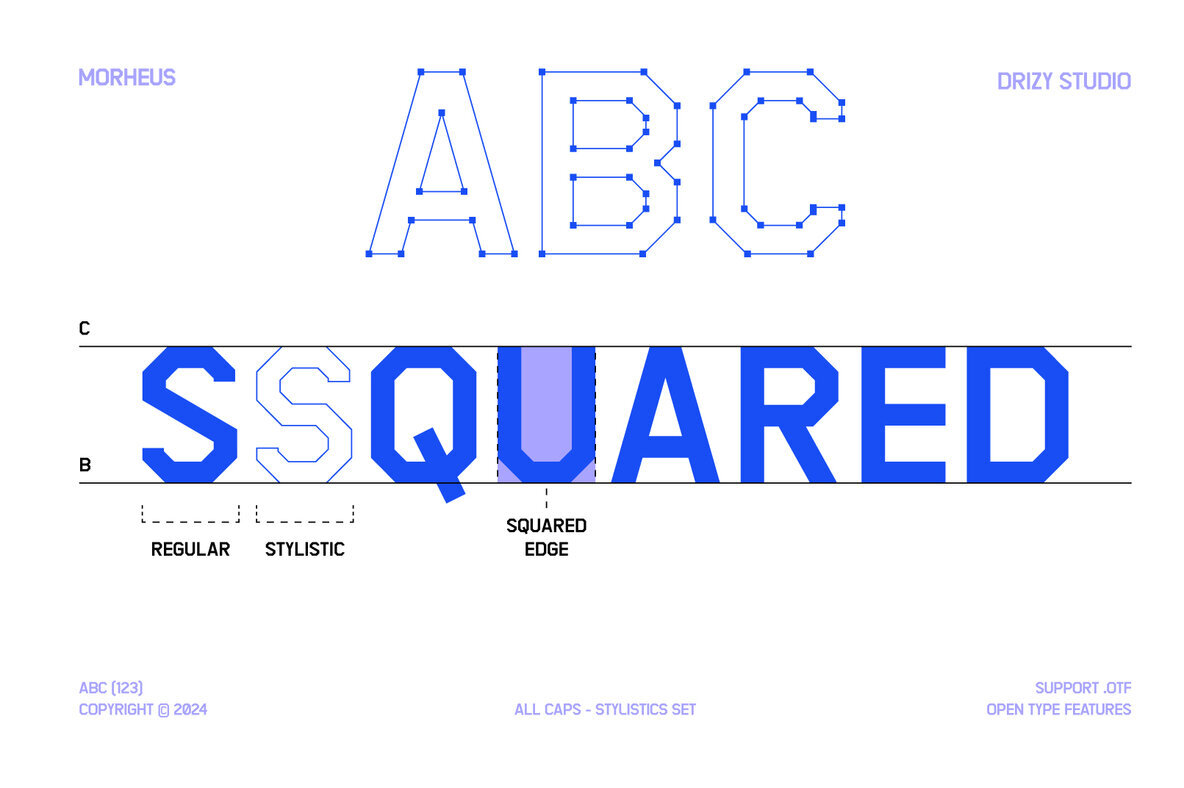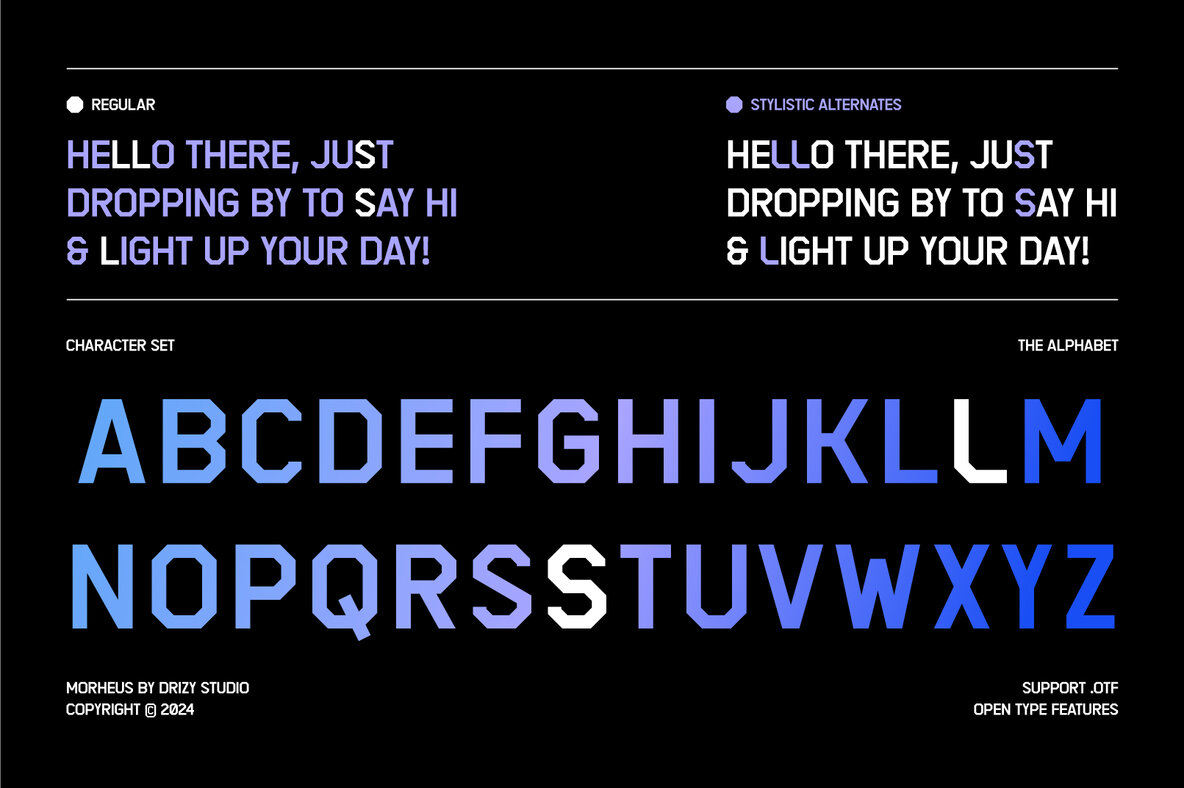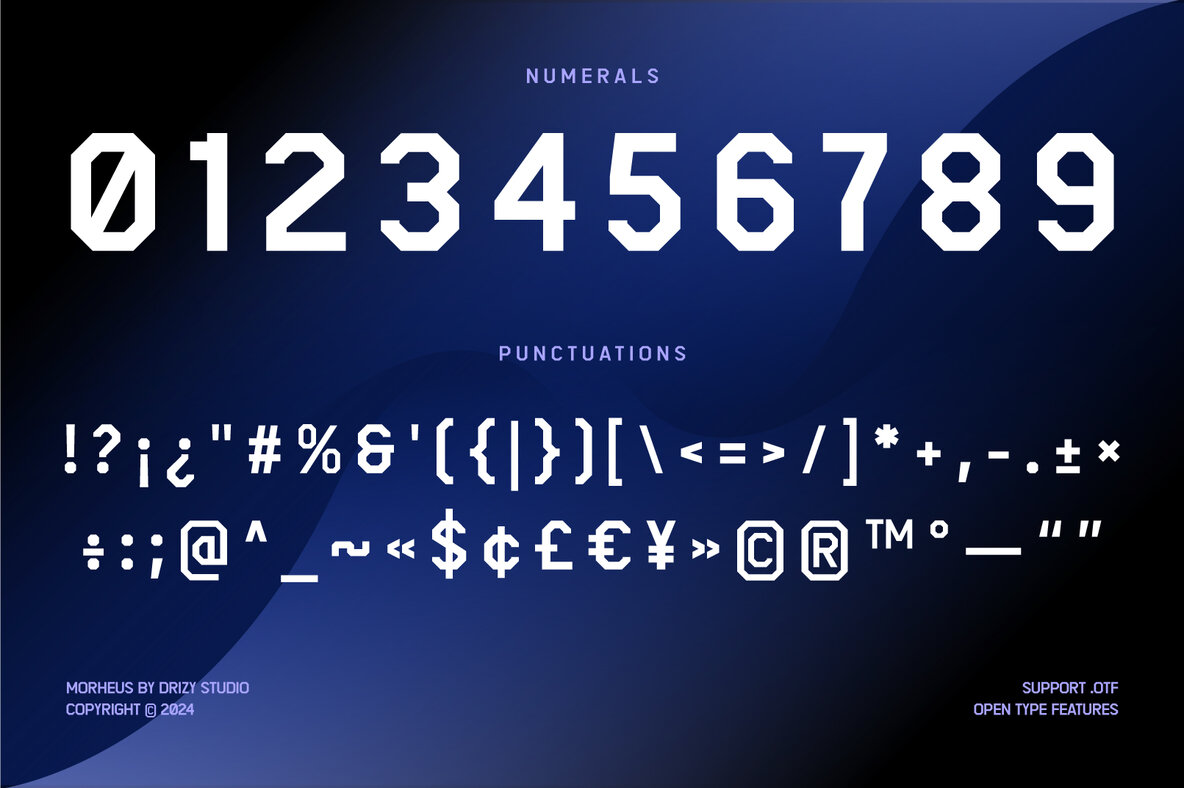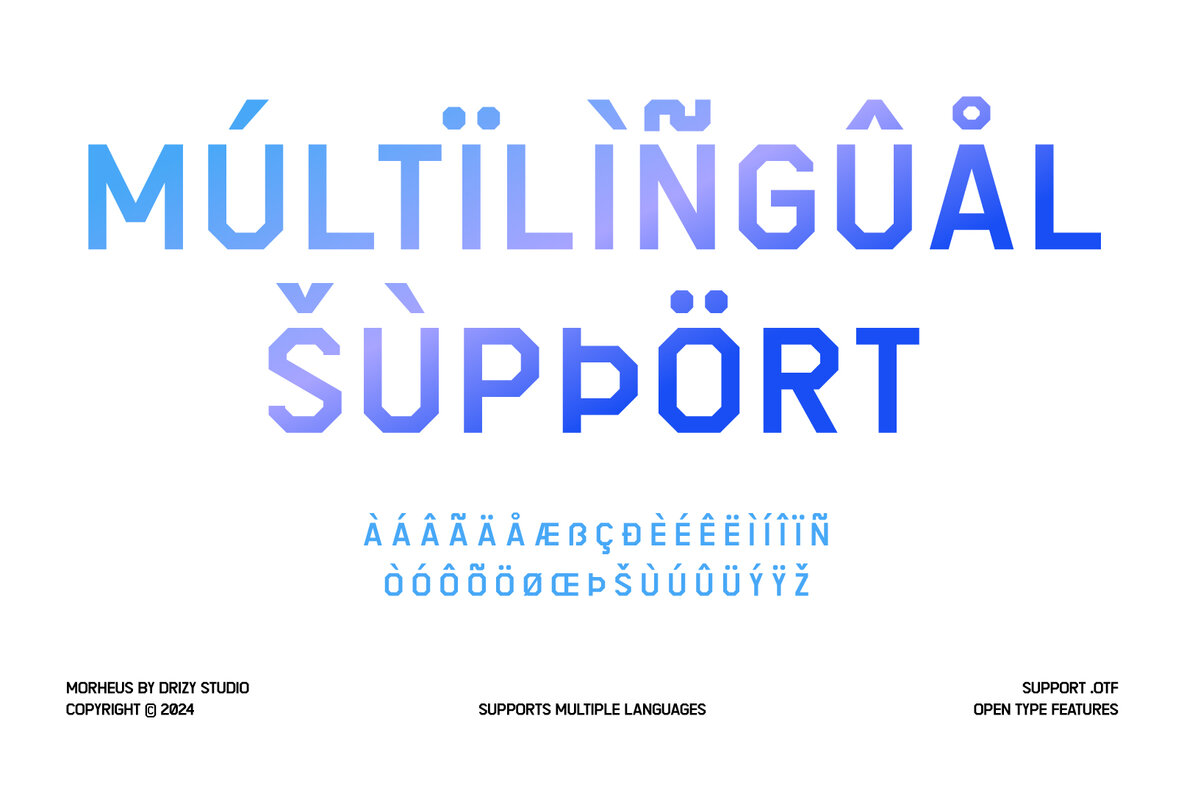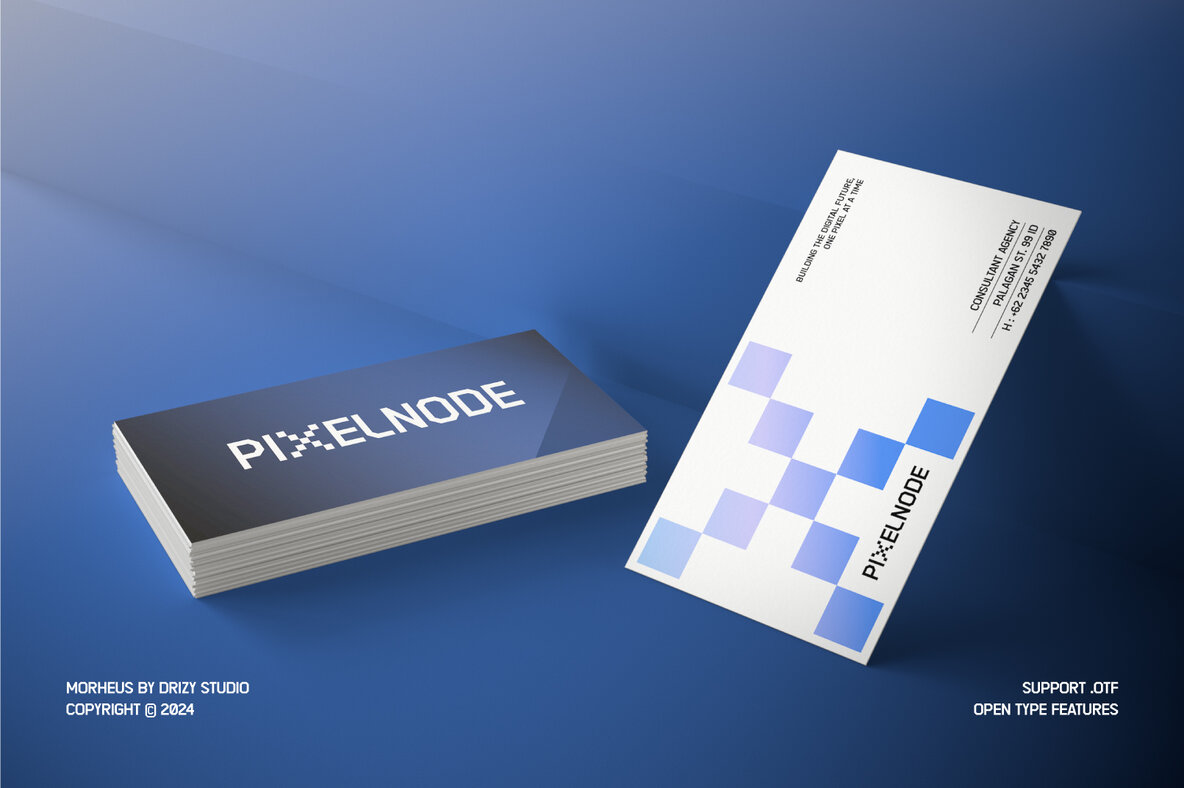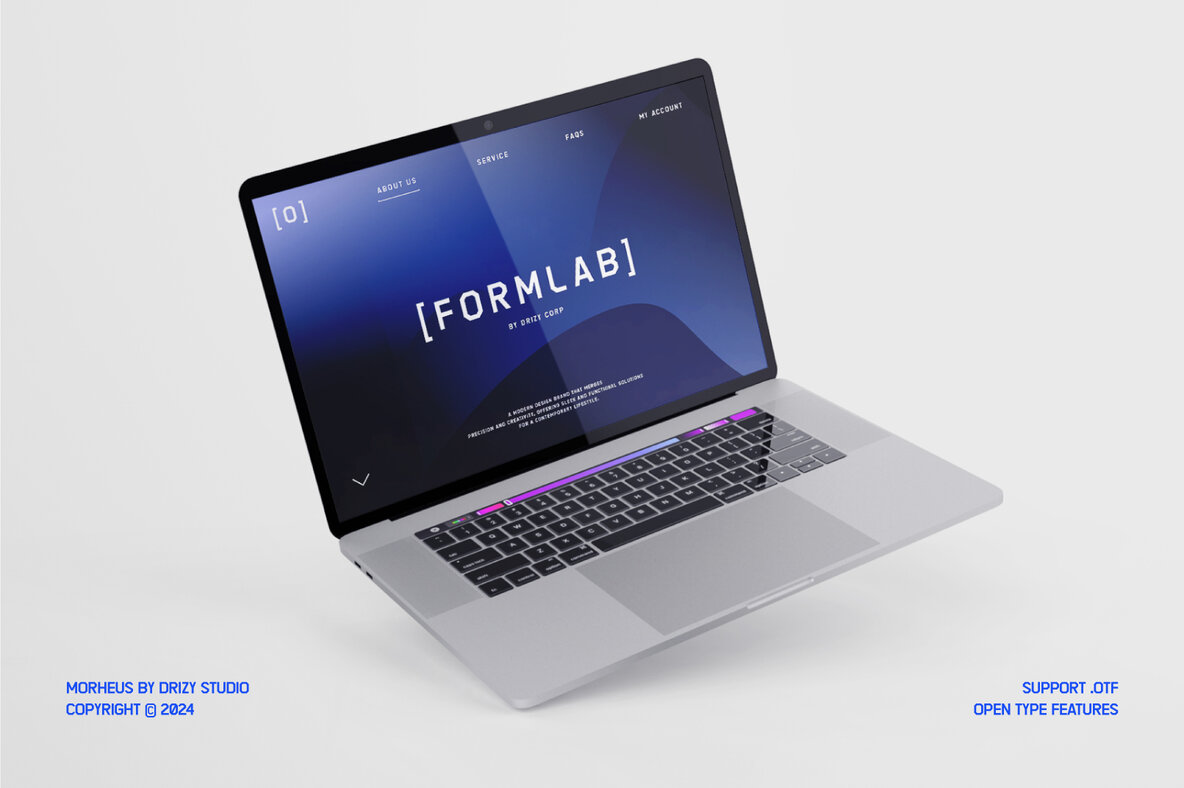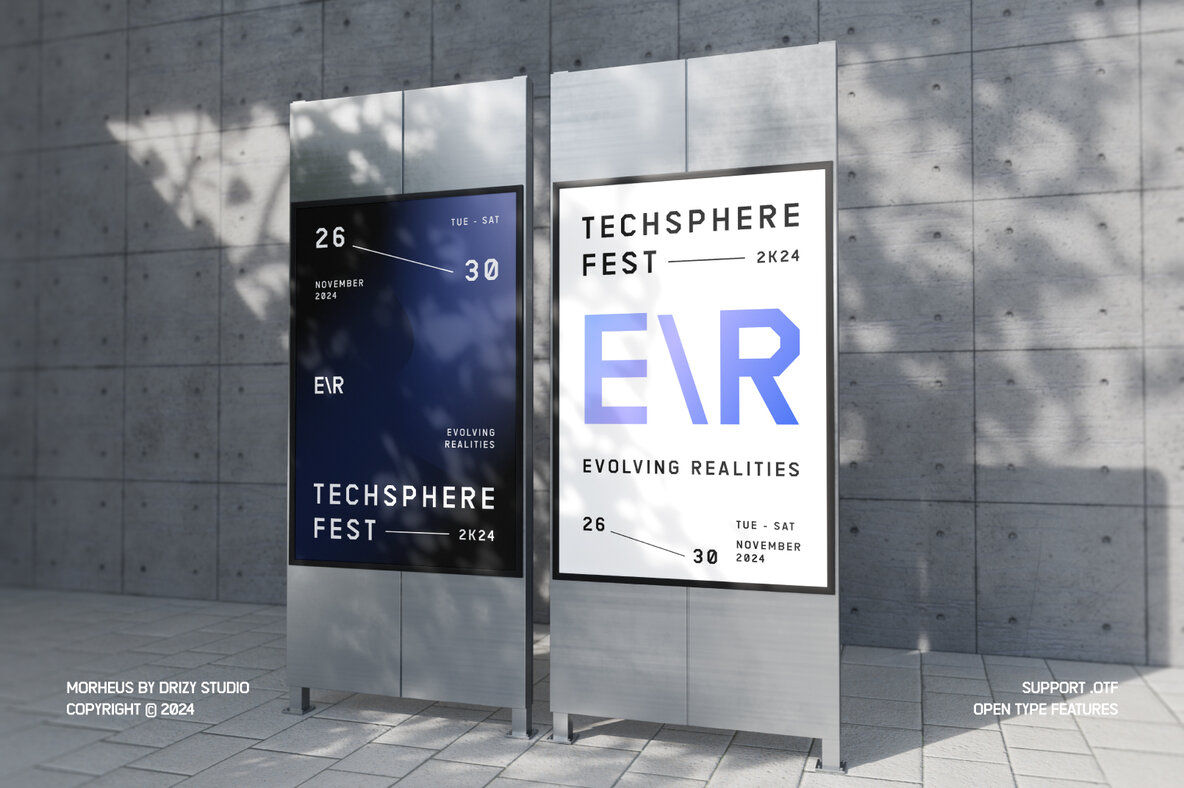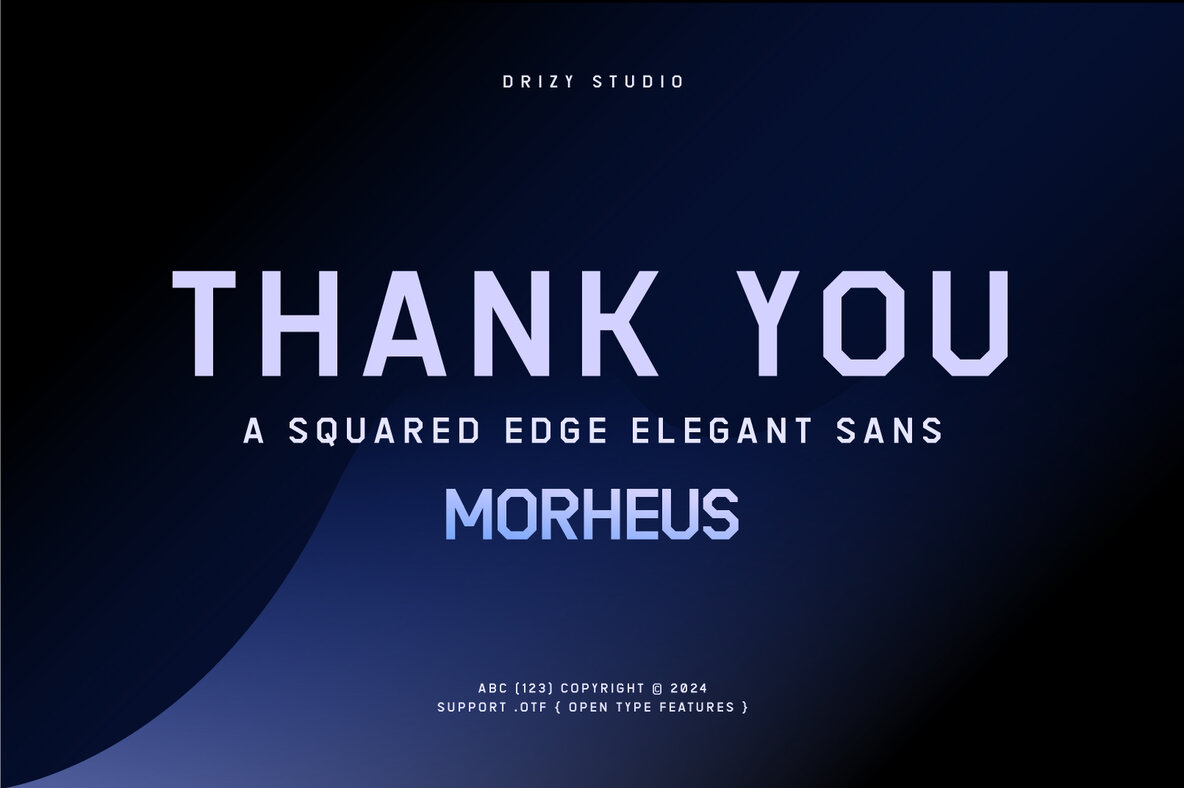
Morheus Font
Morheus Regular
Morpheus is a sleek, contemporary sans-serif typeface tailored for modern creatives. Its squared edges and clean lines strike a perfect balance between sophistication and minimalism, making it an excellent choice for UI/UX design and visual identity projects. Whether you're designing a tech-savvy app interface, branding for a forward-thinking company, or crafting polished web layouts, Morpheus offers a professional yet approachable aesthetic.
With excellent versatility and legibility, Morpheus stands out in both digital and print formats. Its modern elegance infuses a touch of refinement into any design. Key features include an all-caps character set, punctuation, numbers, multilingual support, and a stylistic set 01, making it a comprehensive tool for diverse creative endeavors.